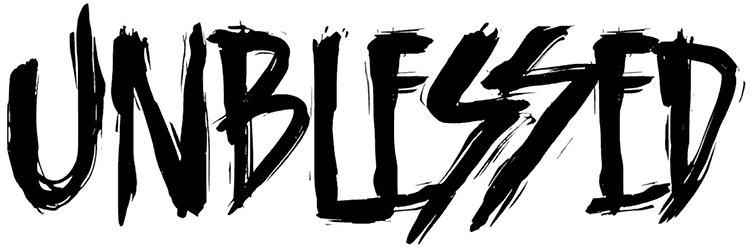
Unblessed Font
If Unblessed looks familiar to you, it’s because brush fonts have given way to creating eerie deacon beauty. This scratched font has broken letters with sharp angles that can enhance your design and work well for any horror writing.
So, if you don’t need small letters and some numbers in your new project, Unblessed can gain a special place in your collection and create a professional quality in your writing.